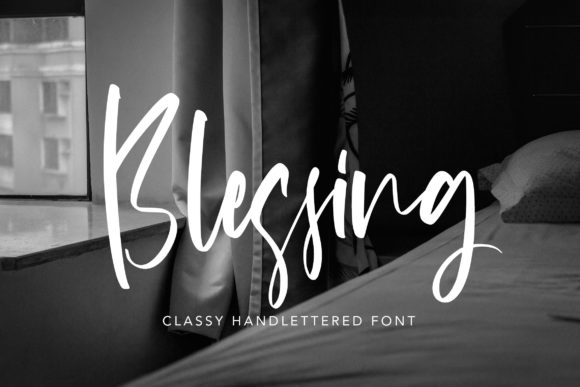
The Blessing Font: A Designer’s Dream Come True
Have you ever been in the middle of a design project, and suddenly, you’re stuck on finding the perfect font? I recall a particularly frustrating experience while working on a wedding invitation design. My client wanted a font that was both elegant and modern, but I just couldn’t seem to find the right fit. That’s when I stumbled upon the Blessing font, and let me tell you, it was love at first sight! 💕
An Honest Review of Blessing Font
What I Love About Blessing Font
• ✨ Exquisite handwritten design with a classy, calligraphic feel
• ✅ Contemporary and fresh, yet elegant and sophisticated
• 💫 Perfect for a wide range of design projects, from wedding invitations to branding and packaging
• 🎨 Highly versatile, with plenty of OpenType features and glyphs to experiment with
While Blessing font is truly amazing, there are a few minor quirks to be aware of:
• 🤔 Some users have reported issues with kerning, particularly with certain letter combinations. However, this can be easily adjusted in most design software.
• ⚠️ The font may not be suitable for very small text sizes, as it can become a bit delicate.
A Practical Guide to Using Blessing Font
The Designer Inspiration Behind Blessing Font
While the true story behind Blessing font remains a mystery, it’s easy to imagine that it was created by a designer who’s passionate about calligraphy and handwritten fonts. Perhaps the designer drew inspiration from traditional calligraphy techniques, combined with a modern twist to create a font that’s both elegant and fresh.
Q: What type of projects is Blessing font best suited for?
A: Blessing font is perfect for a wide range of design projects, including wedding invitations, branding, packaging, and more.
Q: Is Blessing font available in different weights or styles?
A: While Blessing font may not come in multiple weights or styles, its versatility and range of OpenType features make it easy to experiment with different looks and feels.